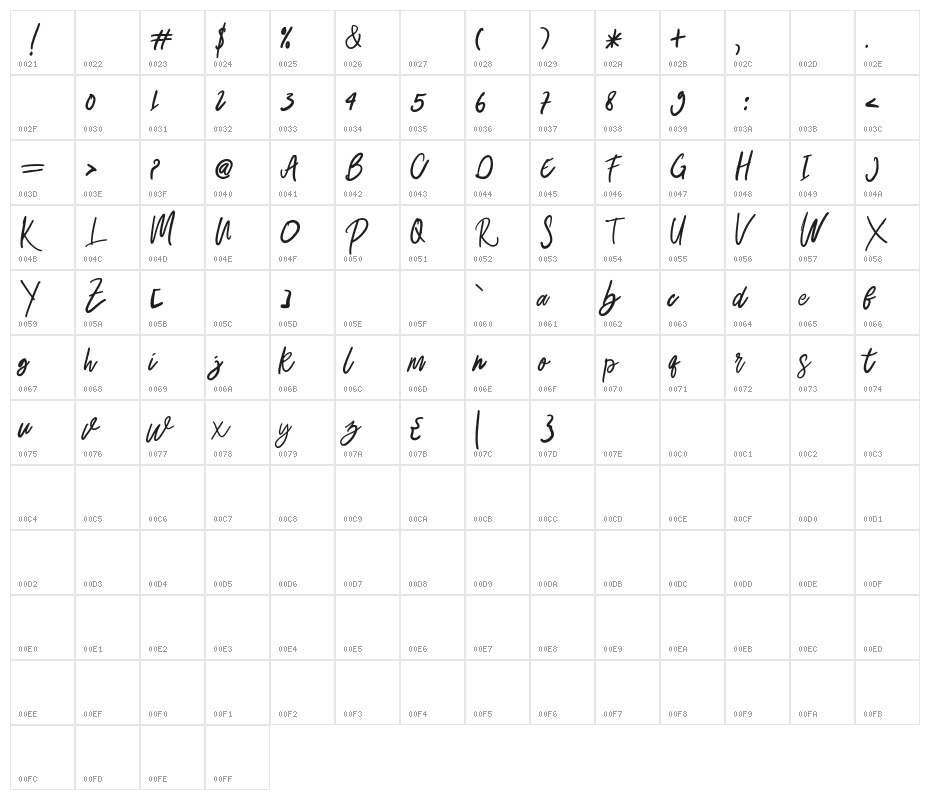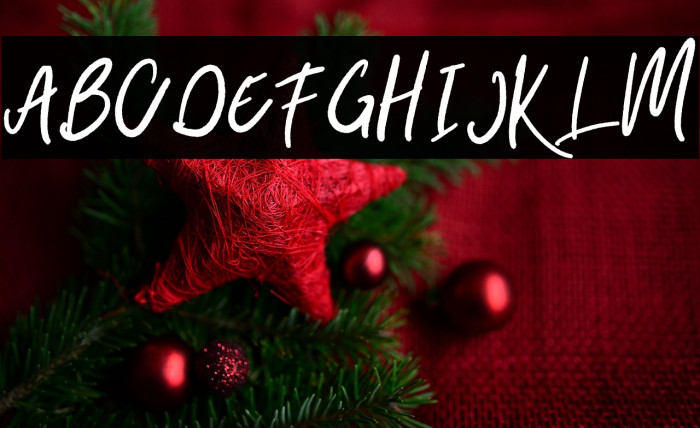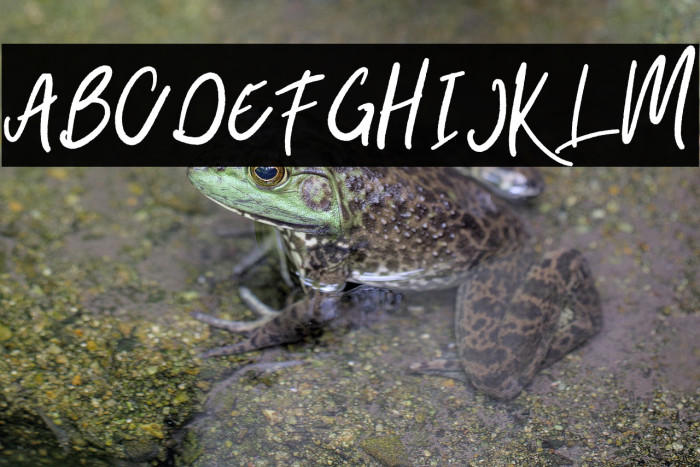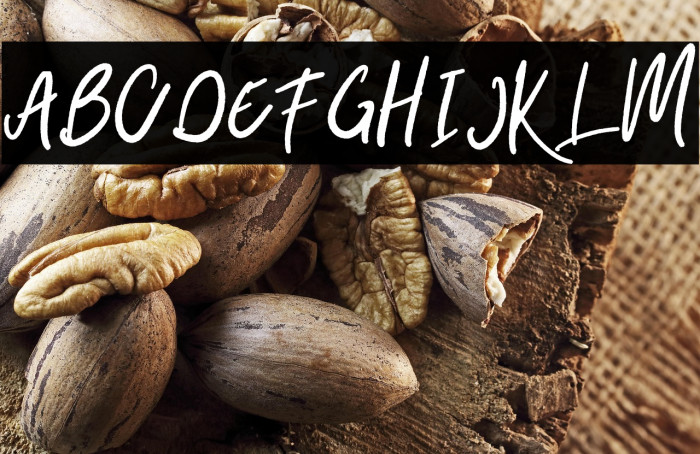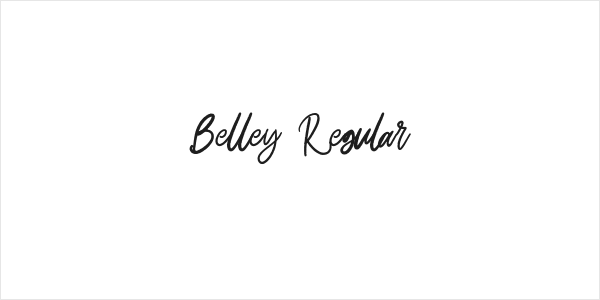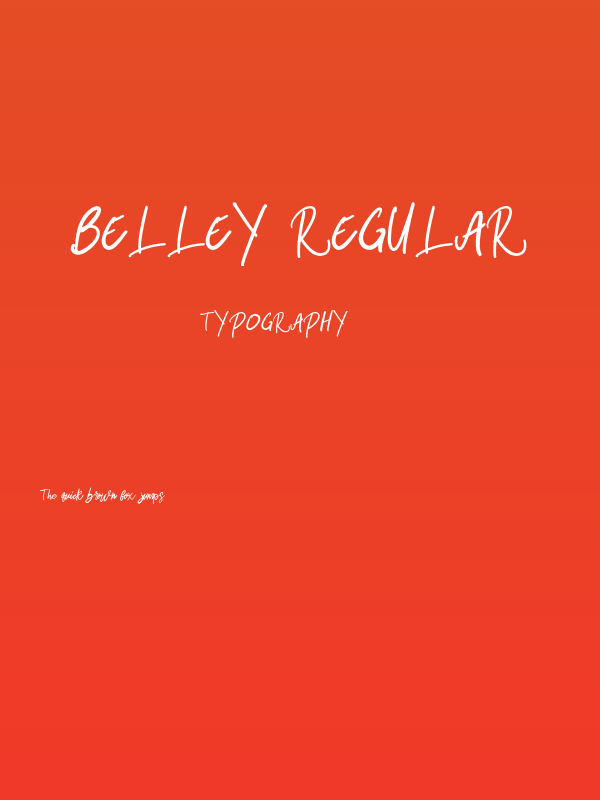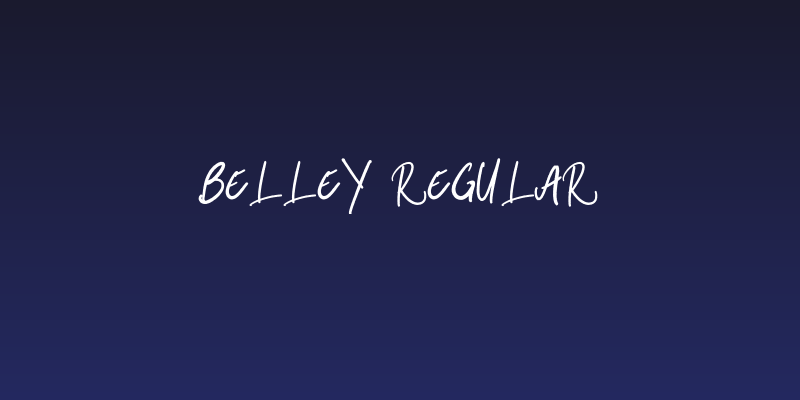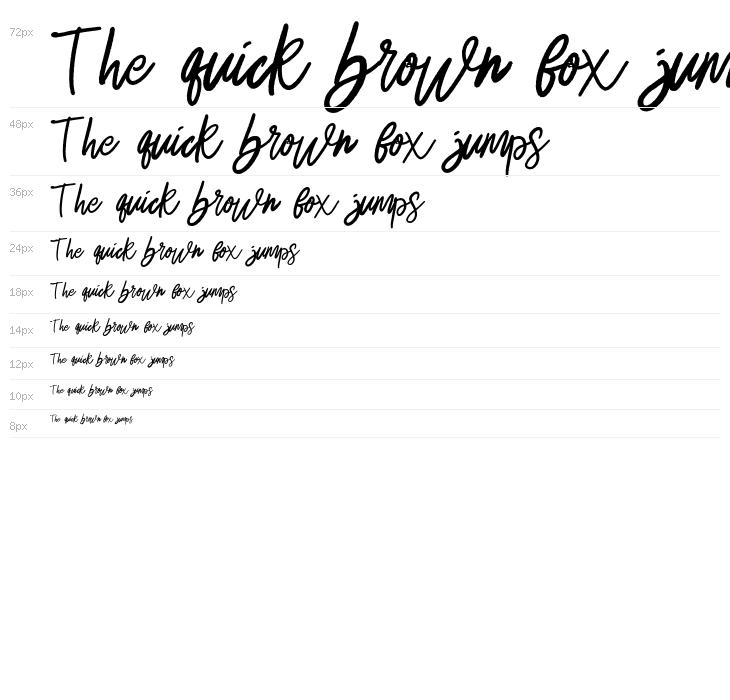
Belley-Regular Font
Belley-Regular Description
This font features a lively and expressive handwritten style, characterized by its fluid and dynamic strokes. The uppercase letters are bold and slightly slanted, giving a sense of movement and energy. The lowercase letters maintain a consistent flow, with some characters featuring loops and flourishes that add to the overall playful aesthetic. The numbers and special characters are crafted with the same attention to detail, ensuring a cohesive look across all glyphs. The font's brush-like texture and varying line thicknesses contribute to its informal and artistic appearance, making it suitable for creative and casual applications.
Use CaseLogos, Headlines, Invitations
Proposed ProjectsIdeal for greeting cards, invitations, branding projects, and social media graphics where a personal touch is desired.